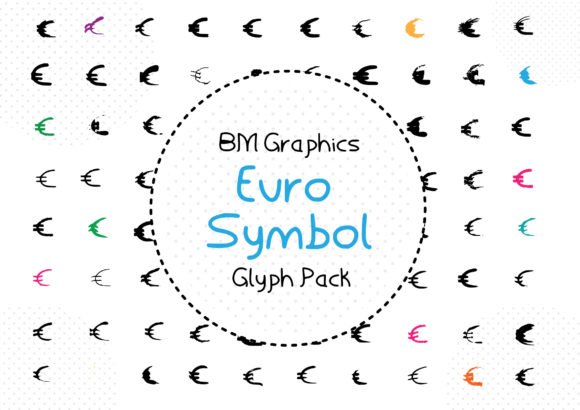
Have you ever stumbled upon a font that makes your design sparkle? For us, it’s that magical moment when we discover a font that perfectly captures the essence of our creative vision. The BM Grpahics – Euro Symbol Font is one such find that will transport you to a world of whimsy and wonder.
This stunning dingbats font is more than just a pretty face – it’s a treasure trove of 81 unique glyphs waiting to be unleashed in your next design project. Whether you’re a seasoned pro or a budding designer, the BM Grpahics – Euro Symbol Font is a valuable addition to your typography toolkit. With its playful look and feel, it’s the perfect way to add a touch of personality to your work.
BM Grpahics – Euro Symbol Font Key Features
- Unique Character Set: The BM Grpahics – Euro Symbol Font features a unique set of characters, including the Euro symbol, making it an ideal choice for designs that require a touch of European flair.
- Font Weight: The font is available in a single weight, providing a clean and modern look that is suitable for a wide range of applications.
- Multi-Lingual Support: The font supports multiple languages, including European languages that use the Euro symbol, making it a versatile choice for global designs.
BM Grpahics – Euro Symbol Font Review
- The font is designed specifically for displaying the Euro symbol, which is perfect for any project that requires a clear and readable representation of the currency.
- The font is highly legible, even at smaller font sizes, making it ideal for use in digital media such as websites and mobile apps.
- The font is also highly customizable, allowing users to adjust the size, color, and style to fit their specific design needs.
- The font is only designed for displaying the Euro symbol, so it may not be the best choice for projects that require a more comprehensive font set.
- The font may not be as stylish or visually appealing as other font options, which could be a limitation for designers looking for a more premium look.
Overall, the BM Grpahics – Euro Symbol Font is a solid choice for anyone who needs a clear and readable representation of the Euro symbol. While it may have some limitations, it’s a reliable and customizable option that gets the job done.
BM Graphics – Euro Symbol Font Practical Application Guide
BM Graphics – Euro Symbol Font is ideal for designing documents and presentations that require a professional and modern look.